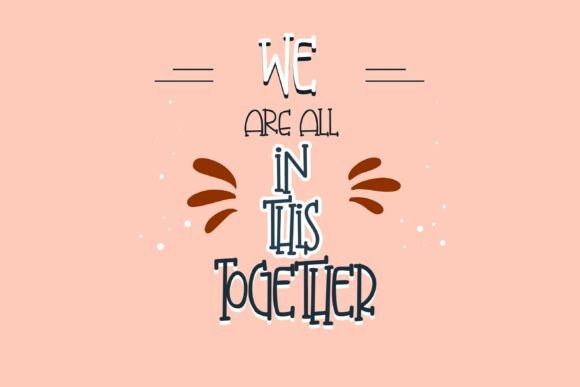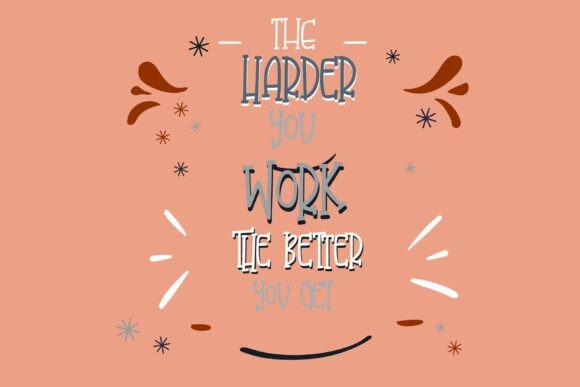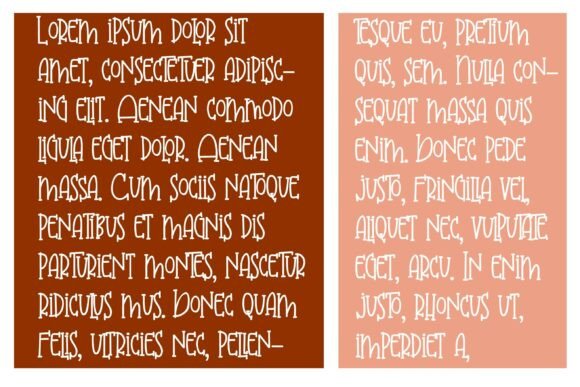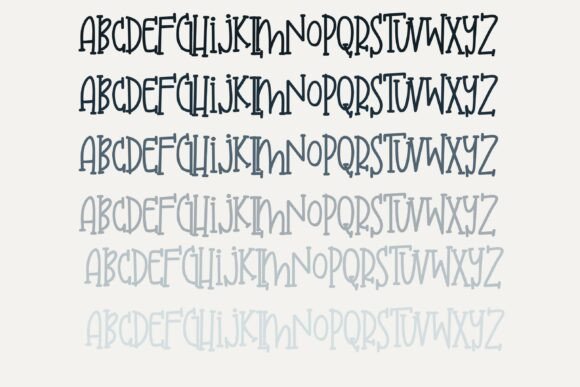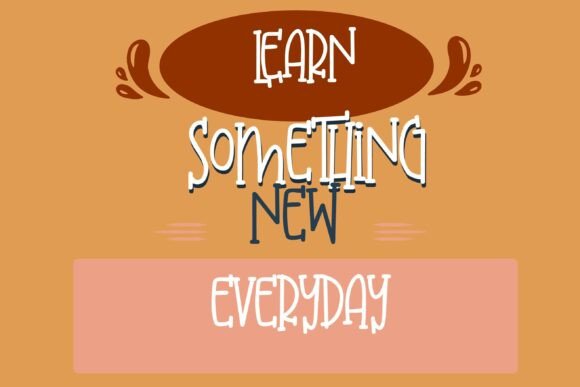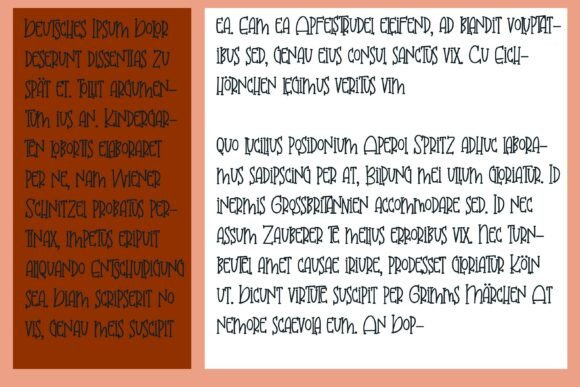
Betterment Font: Elevate Your Designs with a Touch of Elegance and Whimsy
In the world of typography, fonts play a crucial role in conveying the tone and personality of a design. For crafters, designers, and anyone looking to add a personal touch to their projects, the Betterment Font is an excellent choice. This beautiful, hand-written font strikes the perfect balance between elegance and a homespun feel, making it ideal for a wide range of applications.
The Characteristics of Betterment Font
Betterment Font is characterized by its tall, narrow forms and delicate slab serifs. These features give it a unique and sophisticated look that is both eye-catching and refined. The font’s design is thoughtful and meticulous, with each letter carefully crafted to contribute to the overall aesthetic of the text. This attention to detail makes Betterment Font perfect for projects where you want to convey a sense of care and consideration.
Ideal Uses for Betterment Font
Given its distinctive characteristics, Betterment Font is particularly well-suited for certain types of projects. Here are some of the ideal uses for this versatile font:
- Heartfelt Messages: Whether you’re creating greeting cards, invitations, or personal letters, Betterment Font adds a touch of warmth and sincerity to your words.
- Journals and Planners: The elegant yet approachable feel of Betterment Font makes it perfect for journals, planners, and other personal organizers. It adds a personal touch to your layouts and encourages a more intimate and reflective approach to journaling.
- Cozy Lifestyle Designs: For designers and crafters working on projects that celebrate the cozy lifestyle—such as home decor blogs, crafting tutorials, or small business branding—Betterment Font is an excellent choice. It evokes a sense of comfort and warmth, aligning perfectly with the aesthetic of cozy living.
Why Choose Betterment Font?
In a sea of digital fonts, Betterment Font stands out for several reasons:
- Unique Aesthetic: Its blend of elegance and homespun charm is hard to find in other fonts, making it a great way to differentiate your projects.
- Versatility: Betterment Font can be used in a variety of contexts, from digital designs to print materials, offering flexibility for crafters and designers.
- Emotional Connection: The font’s thoughtful design helps create an emotional connection with the reader, making it perfect for projects where you want to convey empathy, warmth, or sincerity.
Tips for Using Betterment Font Effectively
To make the most of Betterment Font, consider the following tips:
- Pair with Complementary Fonts: Betterment Font works well with a variety of other fonts, especially those with a more modern or minimalist design. Experiment with different pairings to find the combination that best suits your project.
- Adjust Letter Spacing: For optimal readability, you may want to adjust the letter spacing. This is particularly important in digital designs where text might appear differently on various devices.
- Use for Headings and Body Text: While Betterment Font is elegant enough for headings, its readability also makes it suitable for body text, especially in projects like journals or blogs.
Betterment Font is a versatile and beautiful typeface that can elevate a wide range of design projects. Its unique blend of elegance and homespun charm makes it perfect for heartfelt messages, journals, cozy lifestyle designs, and more. Whether you’re a professional designer or a crafter looking to add a personal touch to your work, Betterment Font is an excellent choice. With its thoughtful design and distinctive aesthetic, it’s sure to make your projects stand out and connect with your audience on a deeper level.